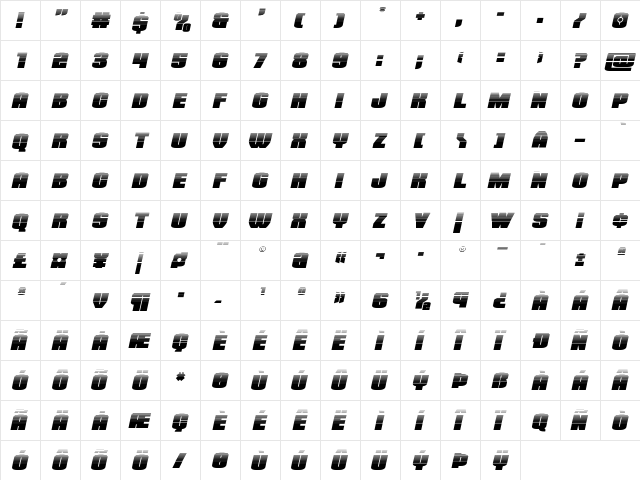
Elephant Gun Halftone Italic Regular
Design Context for Elephant Gun Halftone Italic Typeface
Elephant Gun Halftone Italic is a composed and adaptable typeface that performs quietly and consistently across a wide range of design contexts. The dynamic lean of this cut emphasises speed and emphasis in any layout.
Pro Tip: Use Elephant Gun Halftone Italic for emphasis, pull quotes, and subheadings where its slanted energy can add rhythm to the layout.